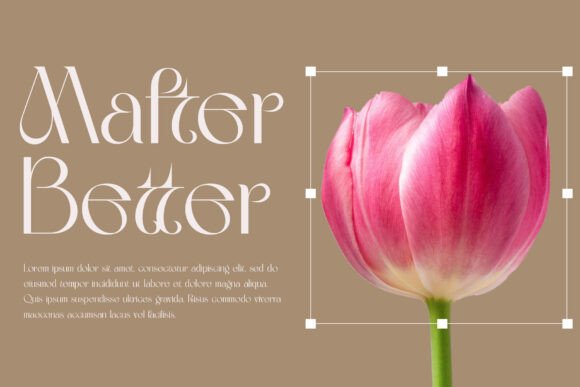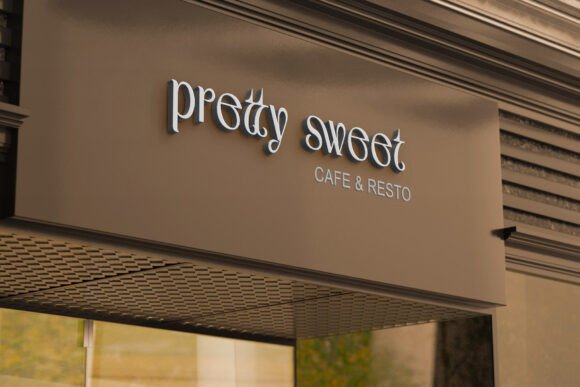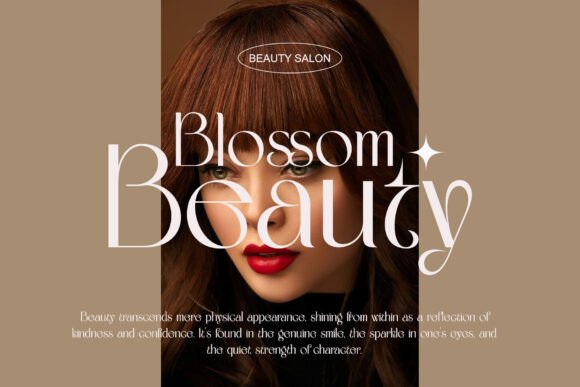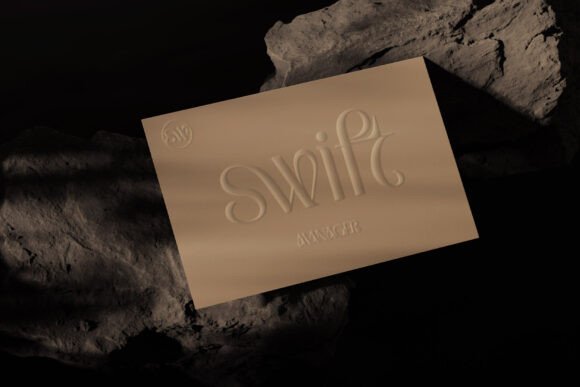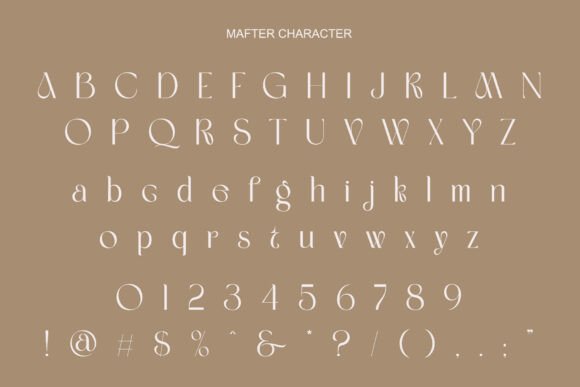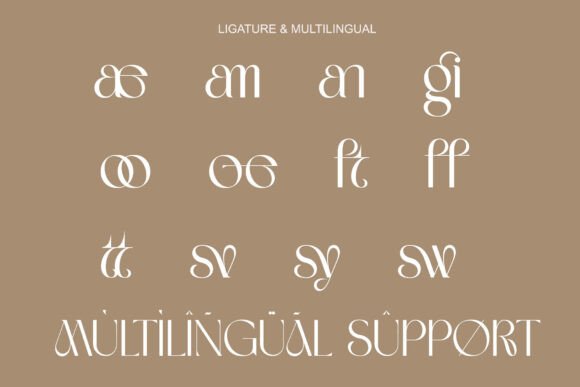
Introduction to Mafter Font
Have you ever stumbled upon a design that perfectly captures the essence of a fleeting moment, only to find yourself lost in the intricate details and nuances that make it truly special? For designers, those ‘aha’ moments are what drive our passion and creativity. One such moment could be the discovery of a font that not only elevates our work but also adds a touch of sophistication and elegance. Meet the Mafter Font, a stunning ligature serif modern font that embodies the beauty of fresh blooms and timeless refinement.
As a valuable design resource, the Mafter Font is a game-changer for any creative project that requires a high-quality, elegant touch. With its bold yet refined ligatures, this font stands out as a sophisticated and feminine typeface that’s perfect for upscale designs. Whether you’re working on a floral-themed project, fashion branding, or high-end marketing materials, the Mafter Font is sure to bring a touch of refinement and natural charm to your work.
Key Features of Mafter Font
- High-quality design resource suitable for creative projects, offering a unique and stylish look.
- Features a transparent background, allowing for easy integration with various design elements and backgrounds.
- Designed with a focus on readability and aesthetic appeal, making it perfect for a wide range of creative projects.
Honest Review: Mafter Font
As a designer, I’m always on the lookout for high-quality design resources to elevate my creative projects. Recently, I had the chance to try out the Mafter Font, and I’m excited to share my honest review.
Limitations: ⚠️ While the Mafter Font is a great addition to any design library, I do wish it had more variations and styles to choose from. Additionally, the font may not be suitable for all types of projects, especially those requiring a more traditional or classic look.
Overall, I’m impressed with the Mafter Font and would definitely recommend it to fellow designers. Its high quality, modern design, and free download make it a valuable resource for any creative project. If you’re looking for a fresh and versatile font, give the Mafter Font a try!
Tips for Getting the Most Out of Mafter Font
To get the most out of Mafter Font, make sure to:
Mafter Font is commonly used in:
- Graphic design projects, such as logos, posters, and brochures.
- Digital design projects, such as website headers and footers.
- Print design projects, such as business cards and flyers.